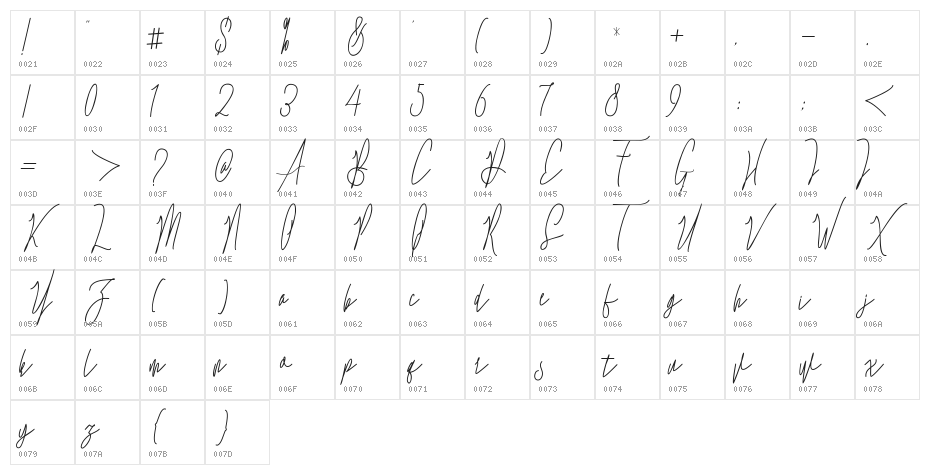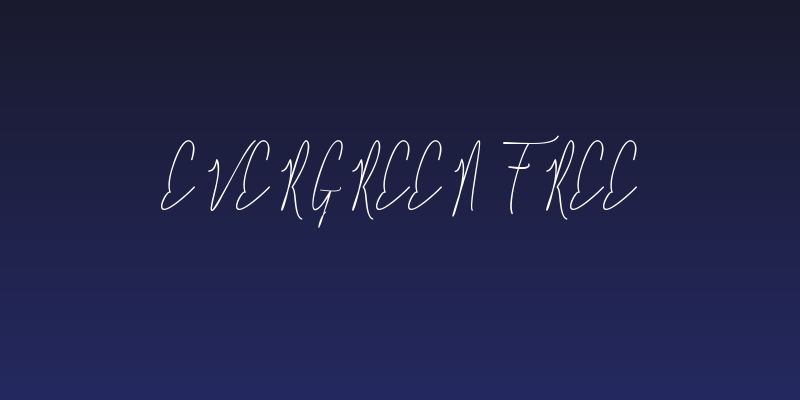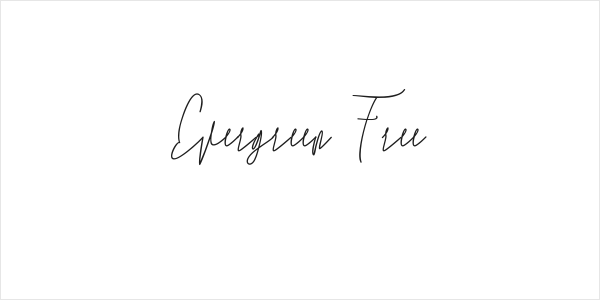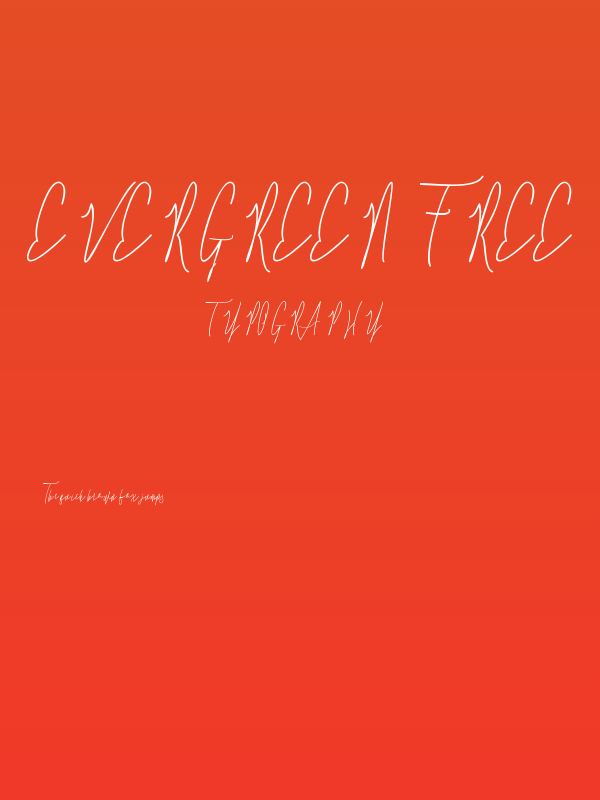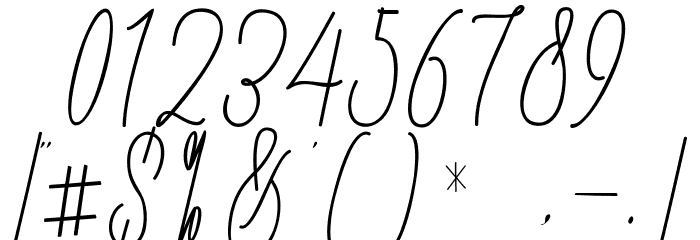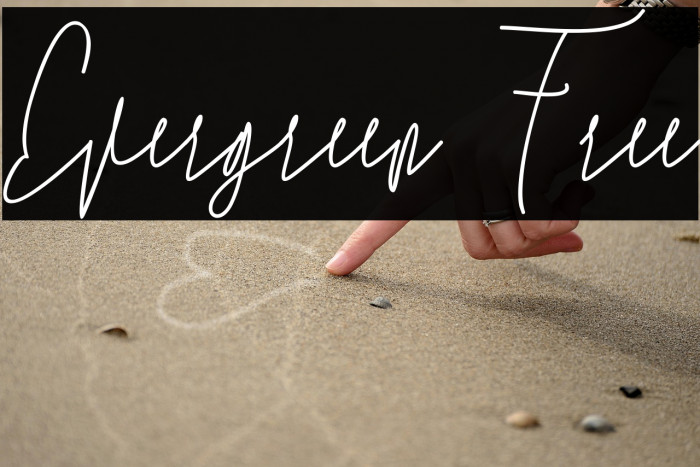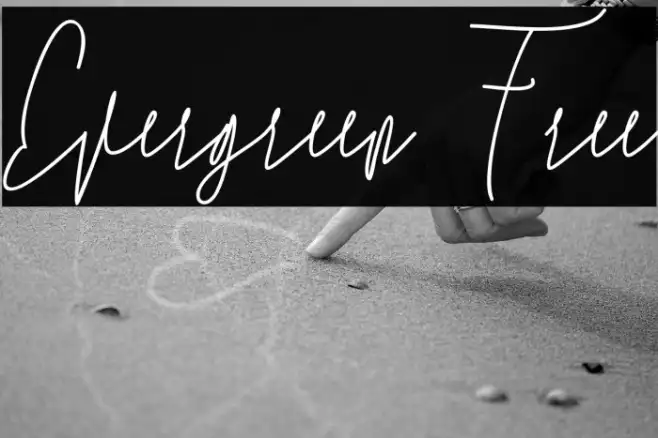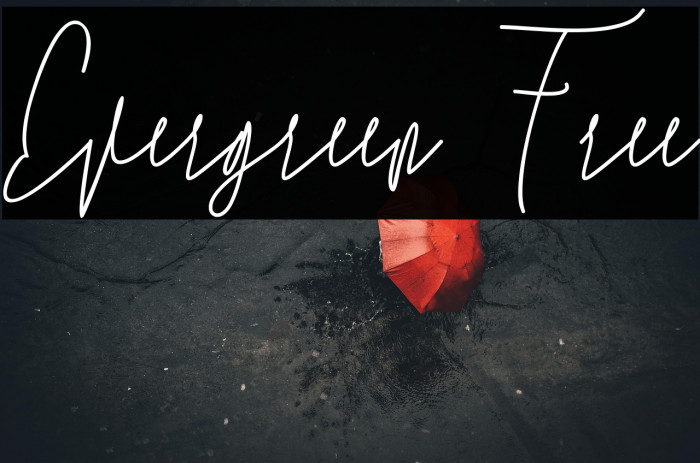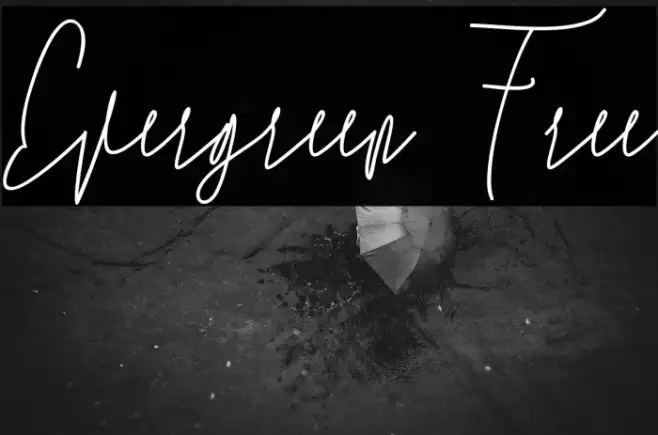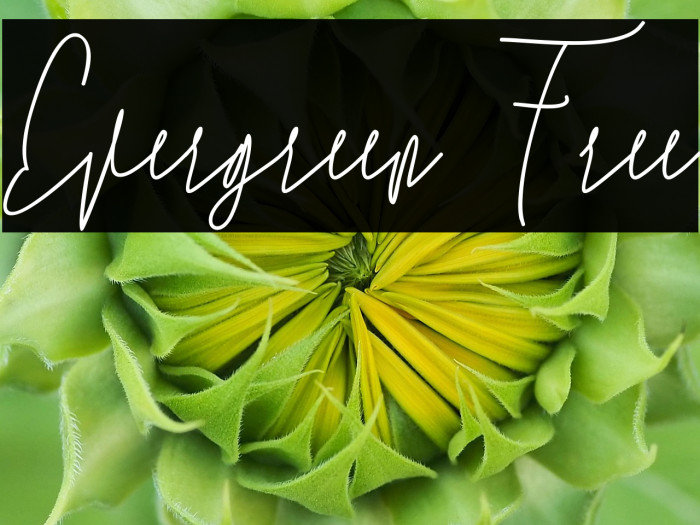
Evergreen Free Font
Evergreen Free Description
This font features a handwritten, cursive style with a natural and flowing appearance. The letters are elegantly connected, giving it a personal and artistic touch. The uppercase letters are slightly more structured, while the lowercase letters exhibit a smooth, continuous flow. The numerals and special characters maintain the same fluidity, ensuring consistency throughout. The strokes are thin, providing a delicate and airy feel, which enhances its readability despite the cursive nature. This font is ideal for projects that require a personal, creative, or artistic flair.